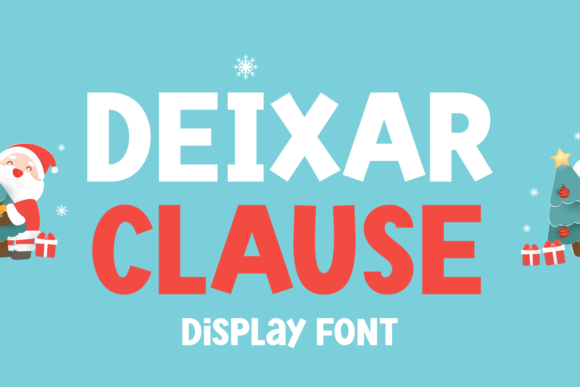
Behold, the Deixar Clause font family – a display font that's got charm and cuteness in abundance. Its delightful, lighthearted vibe makes it ideal for projects that demand playful, eye-catching titles, headings, and designs. Unleash your creativity and let Deixar Clause inject a touch of whimsy into your digital creations.
With Deixar Clause, you can effortlessly elevate your branding, marketing materials, and social media posts. This font is crafted to make your text and designs simply irresistible. Dive into a world of endless possibilities, where you can create logos that dance with character, posters that captivate, and website banners that beckon. Let your imagination soar as you weave captivating social media posts, invitations, and greeting cards that leave a lasting impression.
But that's not all. Deixar Clause is not just a pretty face; it's fully equipped to handle a wide range of design projects. It's the perfect choice for crafting designs that demand attention on blog posts, videos, and even merchandise. With its meticulously crafted curves and dynamic shapes, Deixar Clause will transform your digital designs into masterpieces that resonate with your audience.
Join the creative revolution and embark on a typographic adventure with Deixar Clause. Embrace the power of playful fonts and let your designs exude a charm that captures hearts. Get ready to make a statement, to leave your mark on the digital world, and to create designs that spark joy and ignite imaginations.